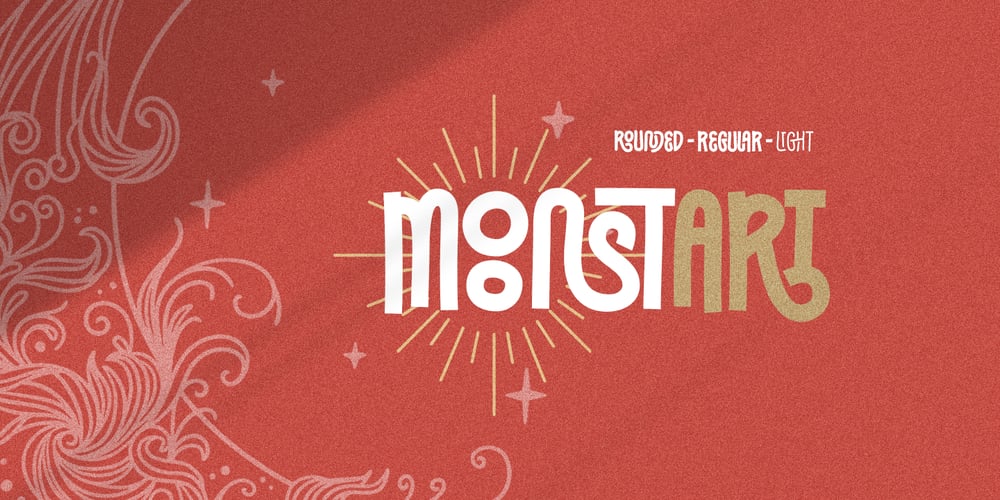
Moonstart Font Family was designed by Jarnawi Saja and published by Grontype. Moonstart contains 3 styles and family package options. Moonstart is a sophisticated condensed decorative typeface, designed to bring an elegant and personal touch to your projects. With its clean lines and fluid strokes, Moonstart exudes a timeless charm, making it perfect for modern branding, invitations, logos, and more. Its uniqueness is further enhanced by the inclusion of ligatures, allowing for seamless letter connections and a naturally flowing writing style. Whether you’re looking to add a stylish flair to your designs or capture a handwritten aesthetic, Moonstart offers a balance of elegance and uniqueness that stands out beautifully in any context.Features: Unique Condensed Decorative Font Uppercase and Lowercase Creative Ligatures Basic Latin Glyphs Elegant and Stylish Numeral and Punctuation Currencies Multilingual Support Thankyou for your support. Best Regards. Grontype